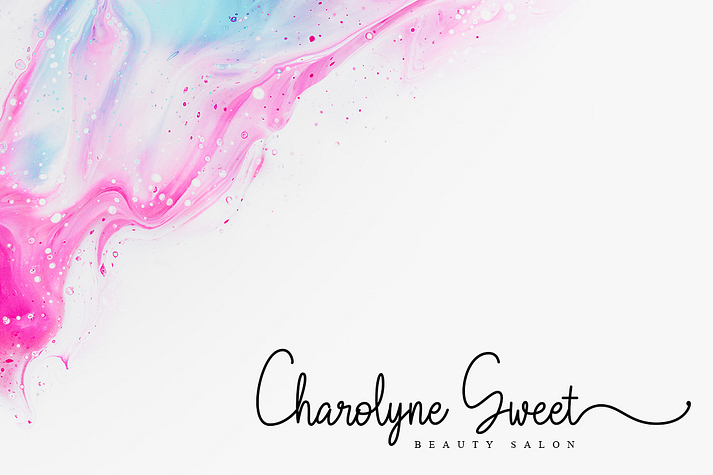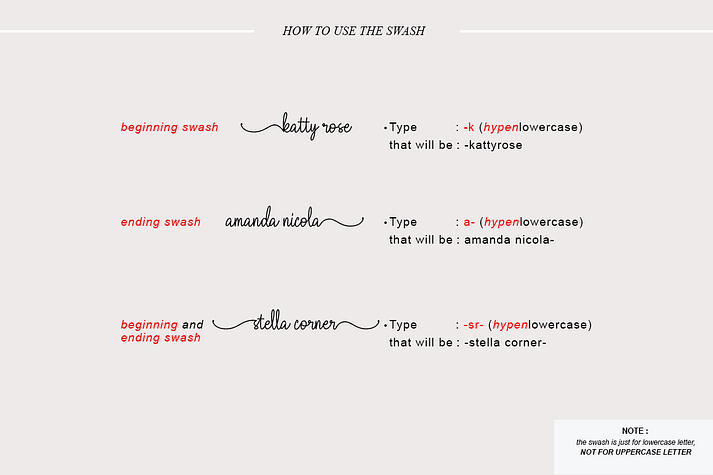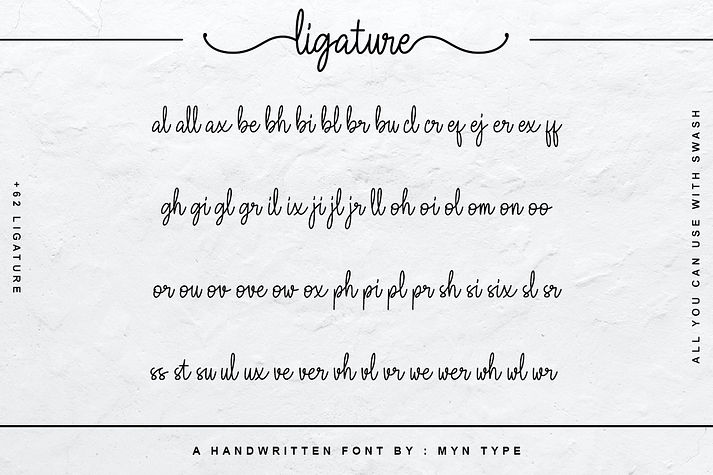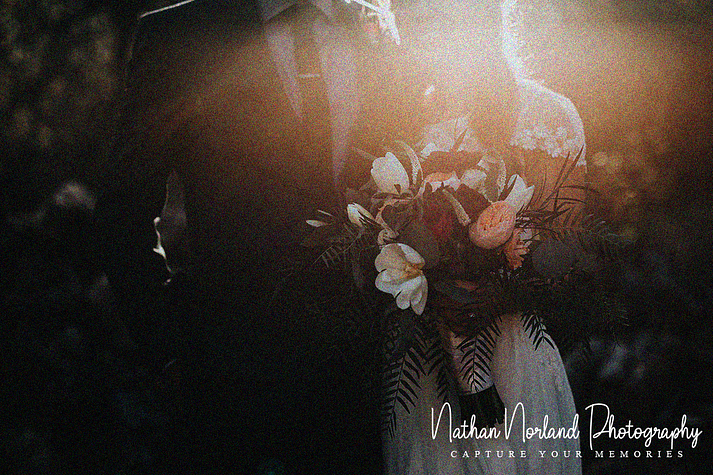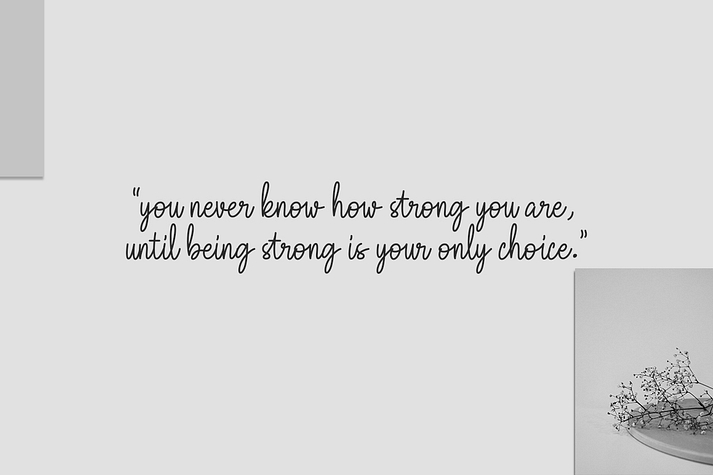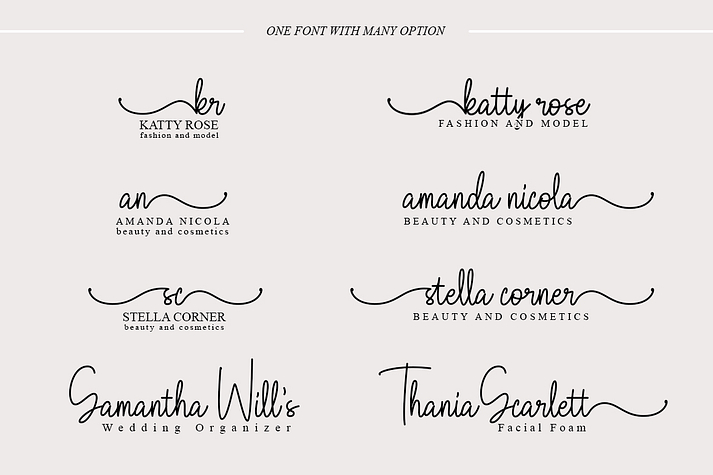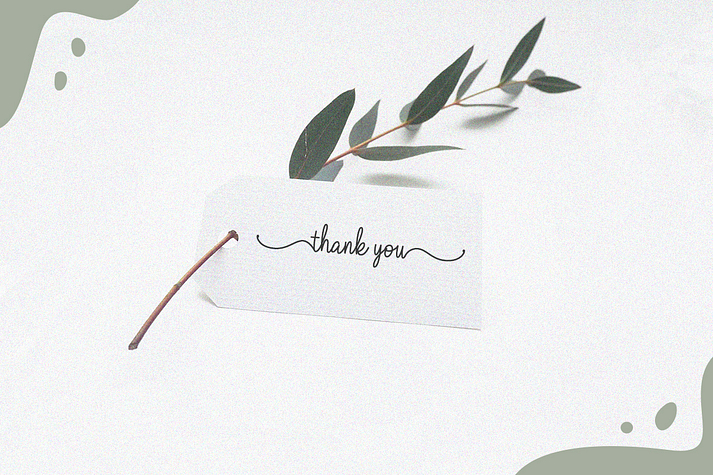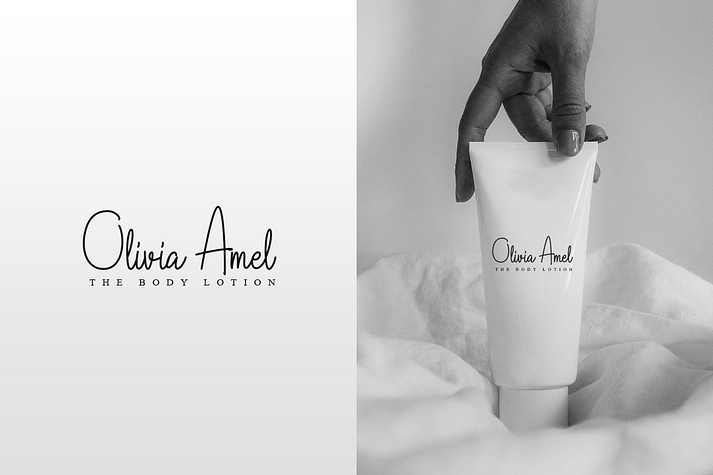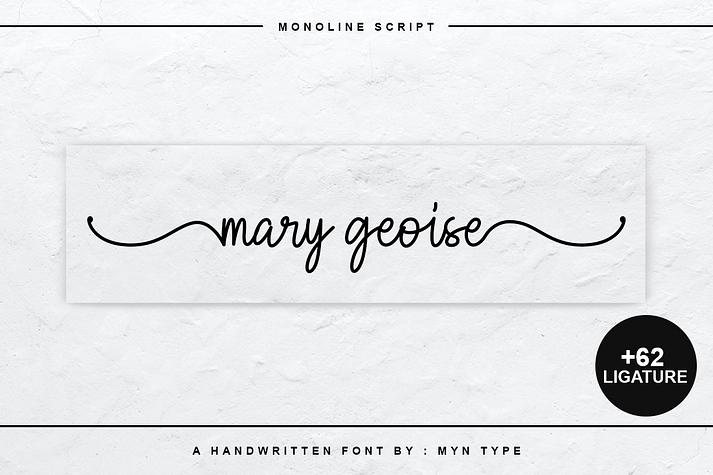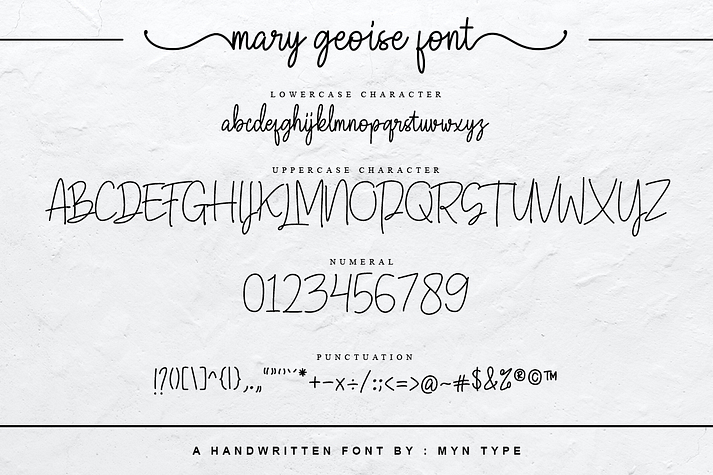
Mary Geoise
Mary Geoise is a hand drawn and modern calligraphy font family published by Myn Type.
Mary Geoise is a natural handwritten script font. There are many ligatures with a beautiful natural swash, suitable for any project and business such as logos, quotes, weddings, product displays, etc. Grab it and enjoy your creativity!
Foundry Myn Type
Styles Hand Drawn, Modern Calligraphy